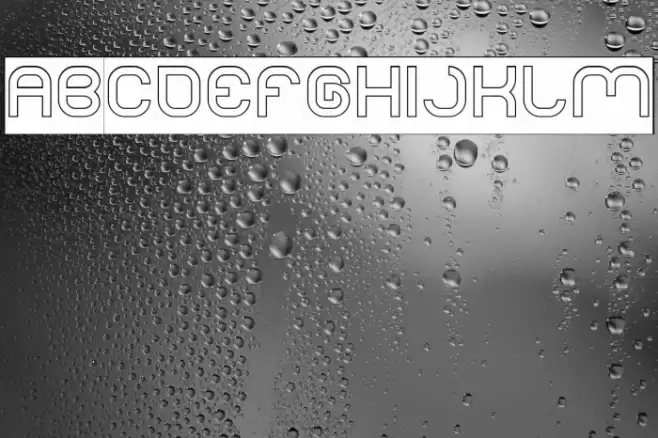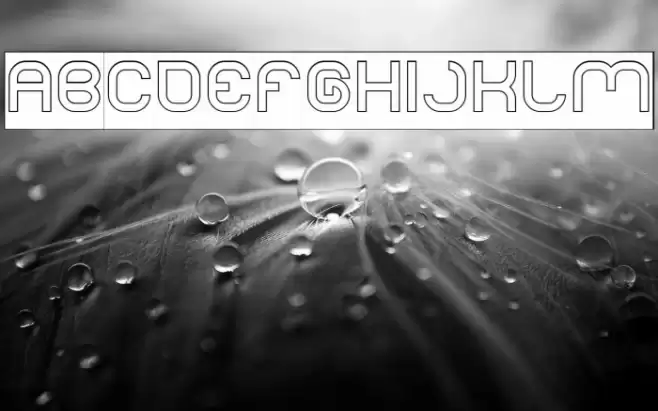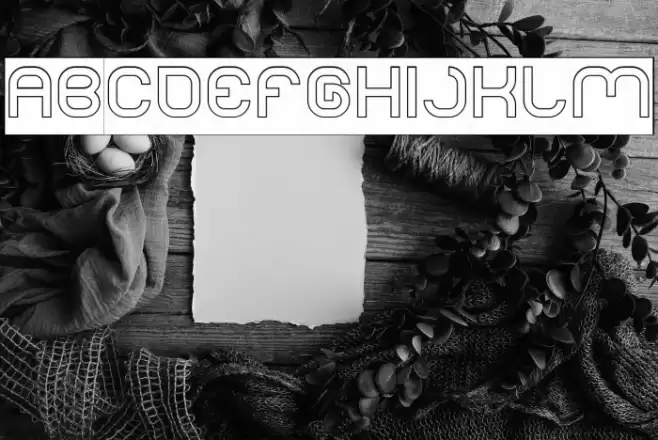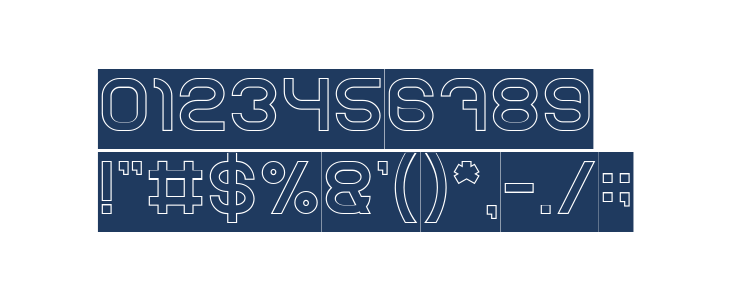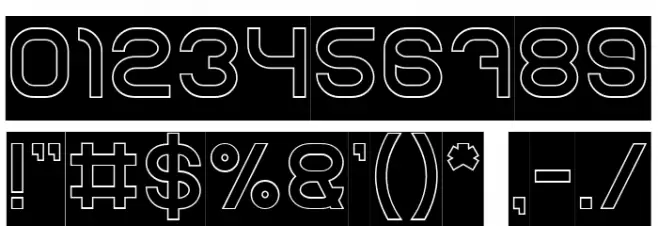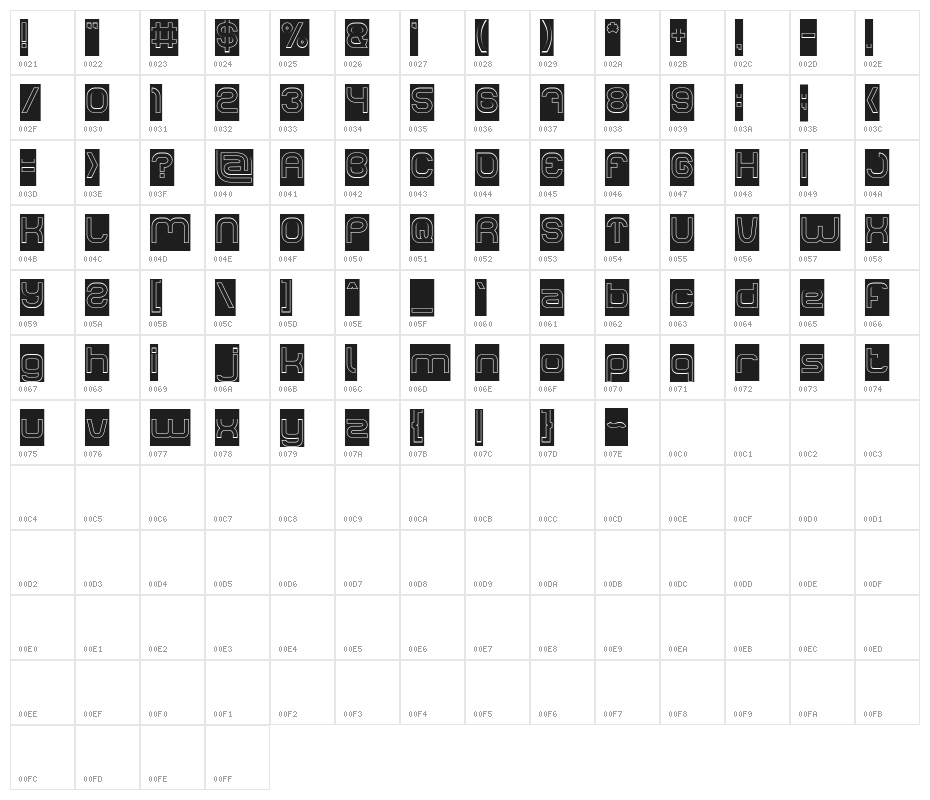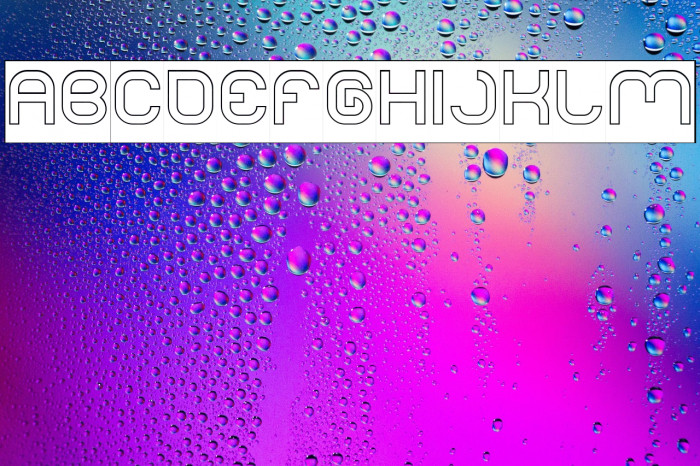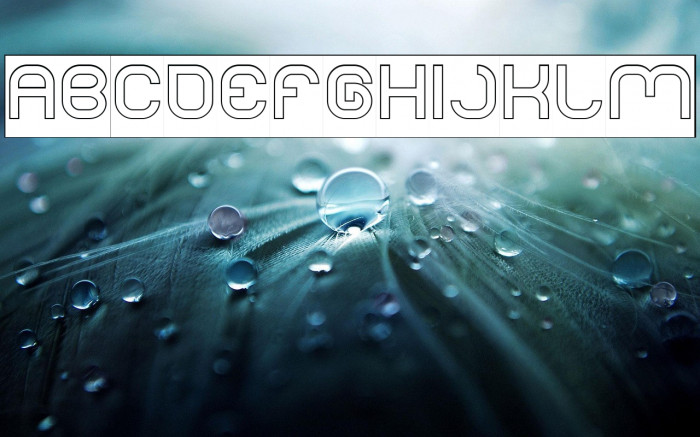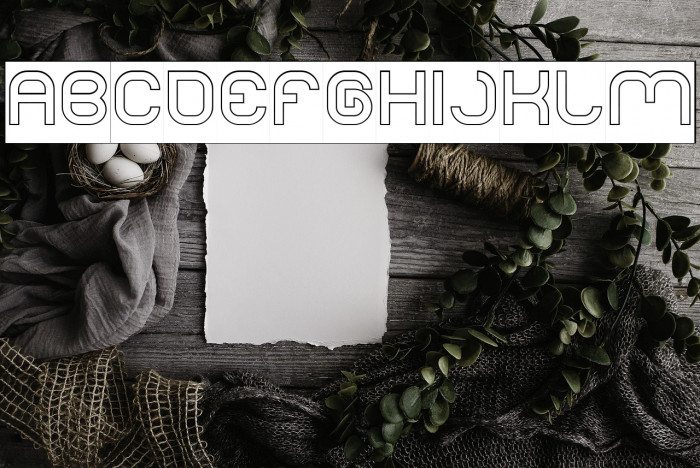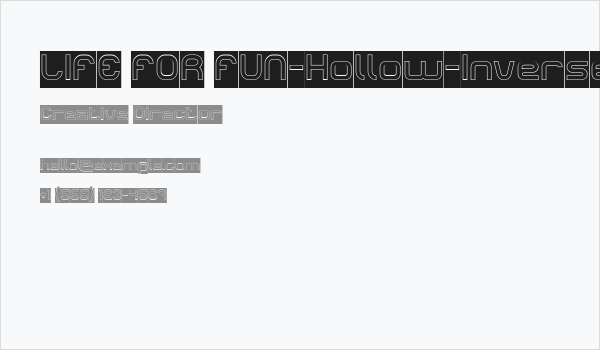
LIFE FOR FUN-Hollow-Inverse Font
LIFE FOR FUN-Hollow-Inverse Description
This font features a hollow, outlined design that gives it a modern and futuristic appearance. The characters are constructed with clean, geometric lines, creating a sense of precision and clarity. The uppercase and lowercase letters maintain a consistent style, with rounded edges and uniform stroke widths. Numbers and special characters follow the same design principles, ensuring a cohesive look across all glyphs. The font's hollow nature makes it ideal for applications where a bold yet airy aesthetic is desired, allowing background elements to show through the characters.
A modern, hollow outlined font with geometric precision from Uncategorized fonts.
- Proposed Projects: Ideal for futuristic branding, tech-related projects, posters, and digital interfaces where a modern and airy look is desired.